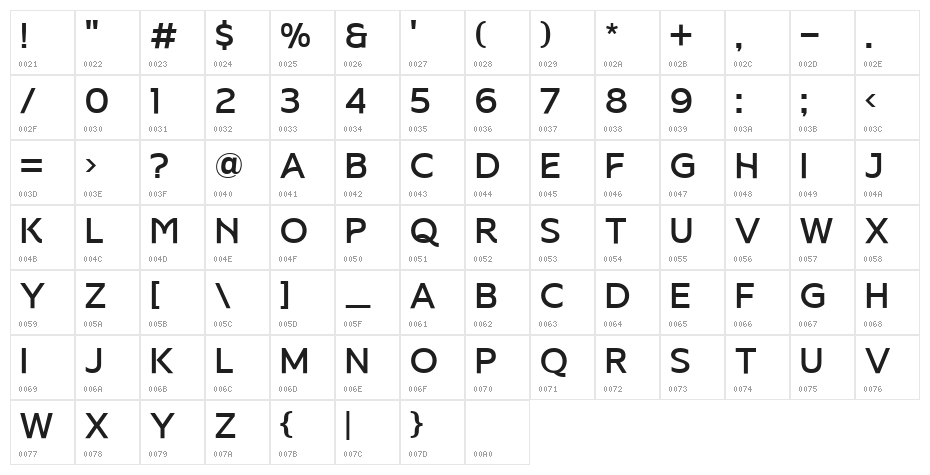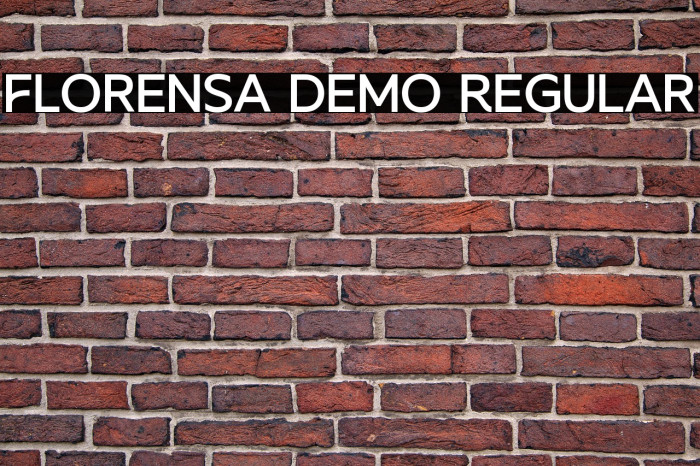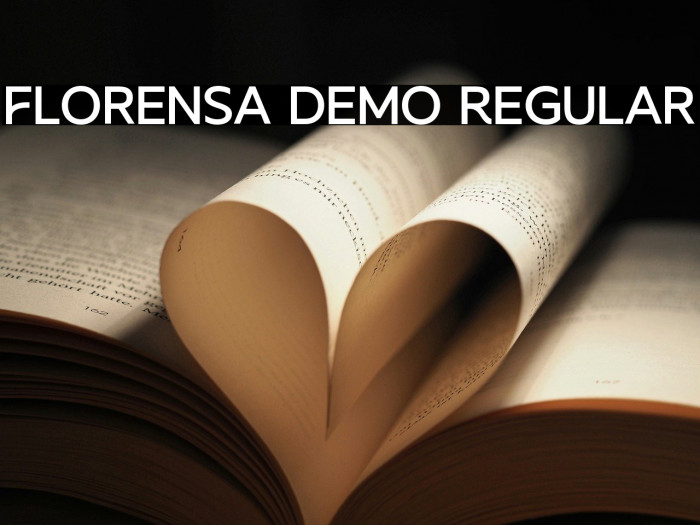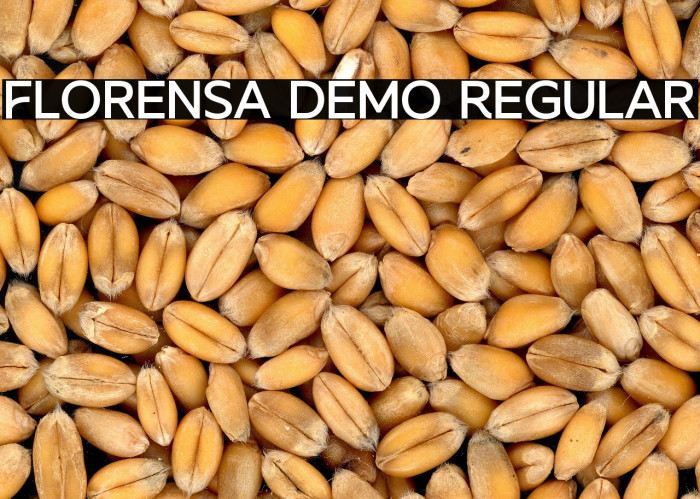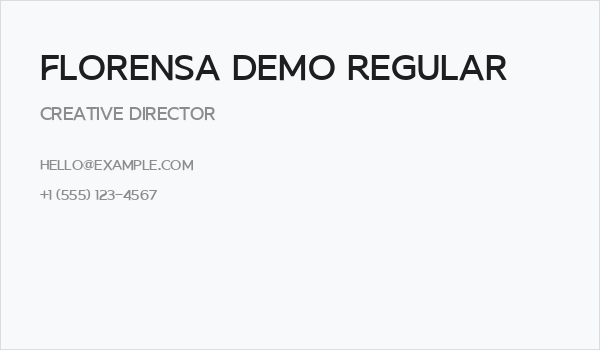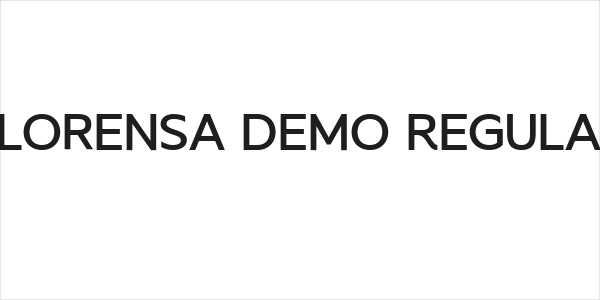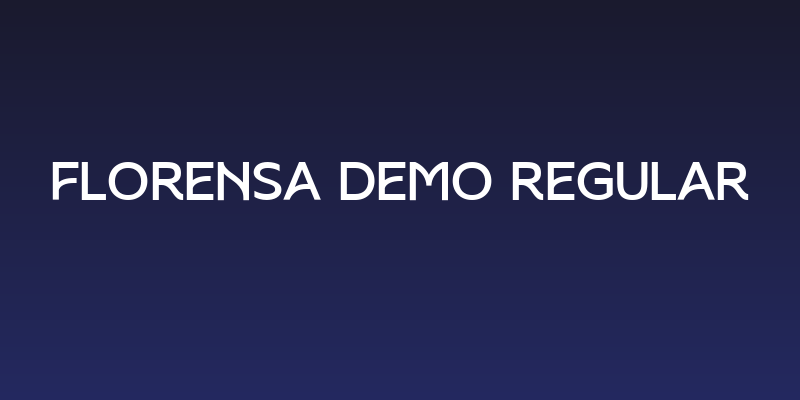
Florensa Demo Regular Font
Florensa Demo Regular Description
This font features a clean and modern sans-serif design, characterized by its geometric shapes and balanced proportions. The uppercase letters are bold and assertive, while the lowercase letters maintain a consistent style that complements the overall aesthetic. The numerals are clear and easy to read, making them suitable for various applications. Special characters are well-integrated, maintaining the font's uniform appearance. The design is versatile, suitable for both digital and print media, offering a professional and contemporary look.